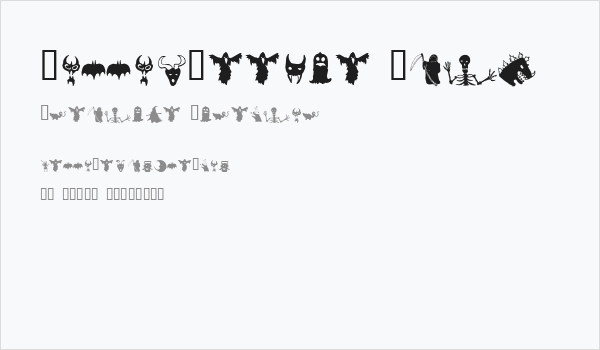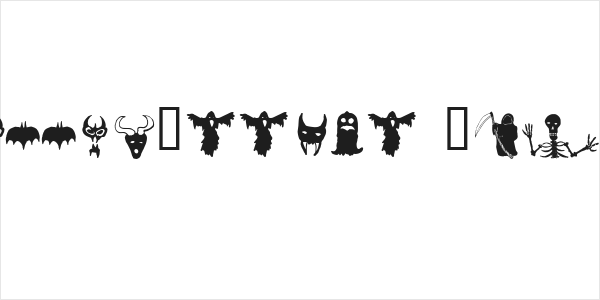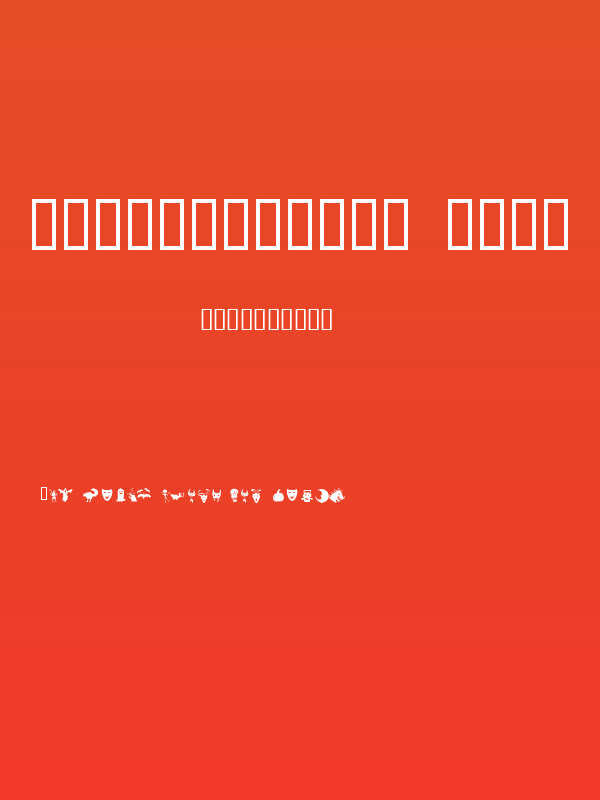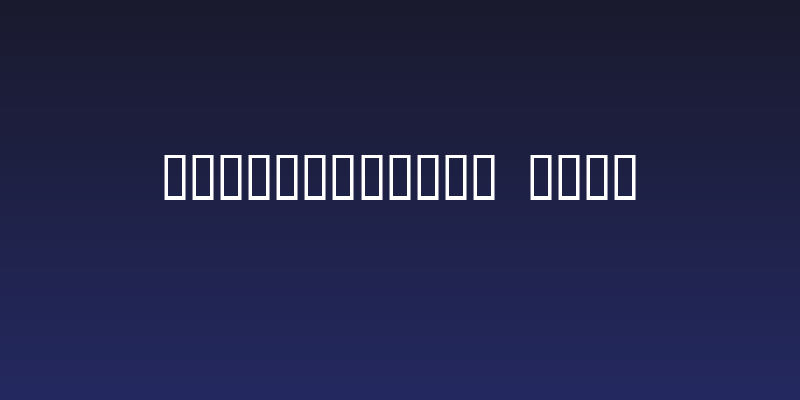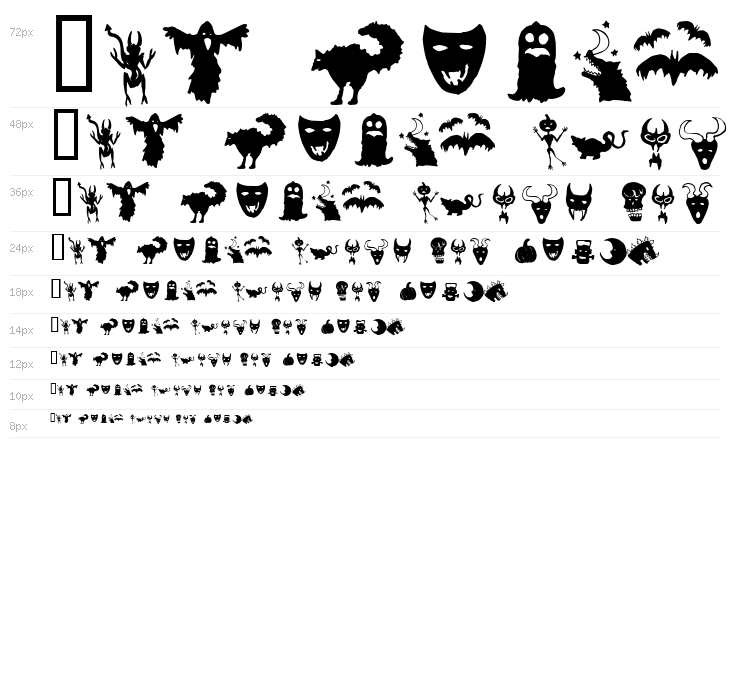
HollowWeenie Bats Font
HollowWeenie Bats Description
This font is a decorative collection of Halloween-themed silhouettes, featuring a variety of spooky and playful designs. Each character is represented by a unique Halloween icon, such as ghosts, pumpkins, bats, skeletons, and witches. The designs are bold and striking, making them ideal for capturing the essence of Halloween festivities. The characters are intricately detailed, with a mix of whimsical and eerie elements that evoke a sense of fun and fright. This font is perfect for adding a festive touch to any Halloween-themed project, offering a creative way to incorporate iconic symbols of the holiday.
| Proposed Projects | Ideal for Halloween party invitations, themed posters, greeting cards, and festive decorations. |